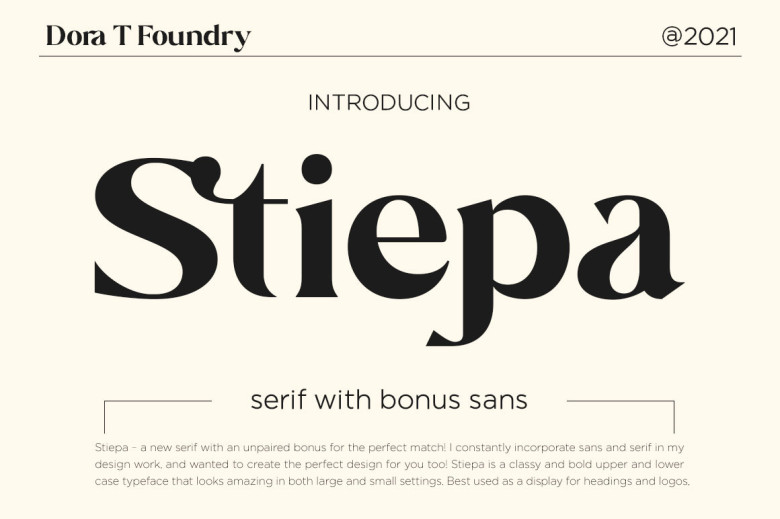
Stiepa Font
Stiepa font collection allows users to mix serif and sans fonts for an eye-catching typographic effect. Stiepa offers sophisticated yet bold lower and upper case typeface that looks beautiful both small and large settings – ideal for future projects including luxury logos and branding, sophisticated fashion, design for editorials such as ladies magazines, beauty brand promotions branding for art galleries architecture history museums boutique brand stationary design blog design contemporary advertising design invitation cards home decor art quote covers book titles special events etc.
Stiepa Serif Font